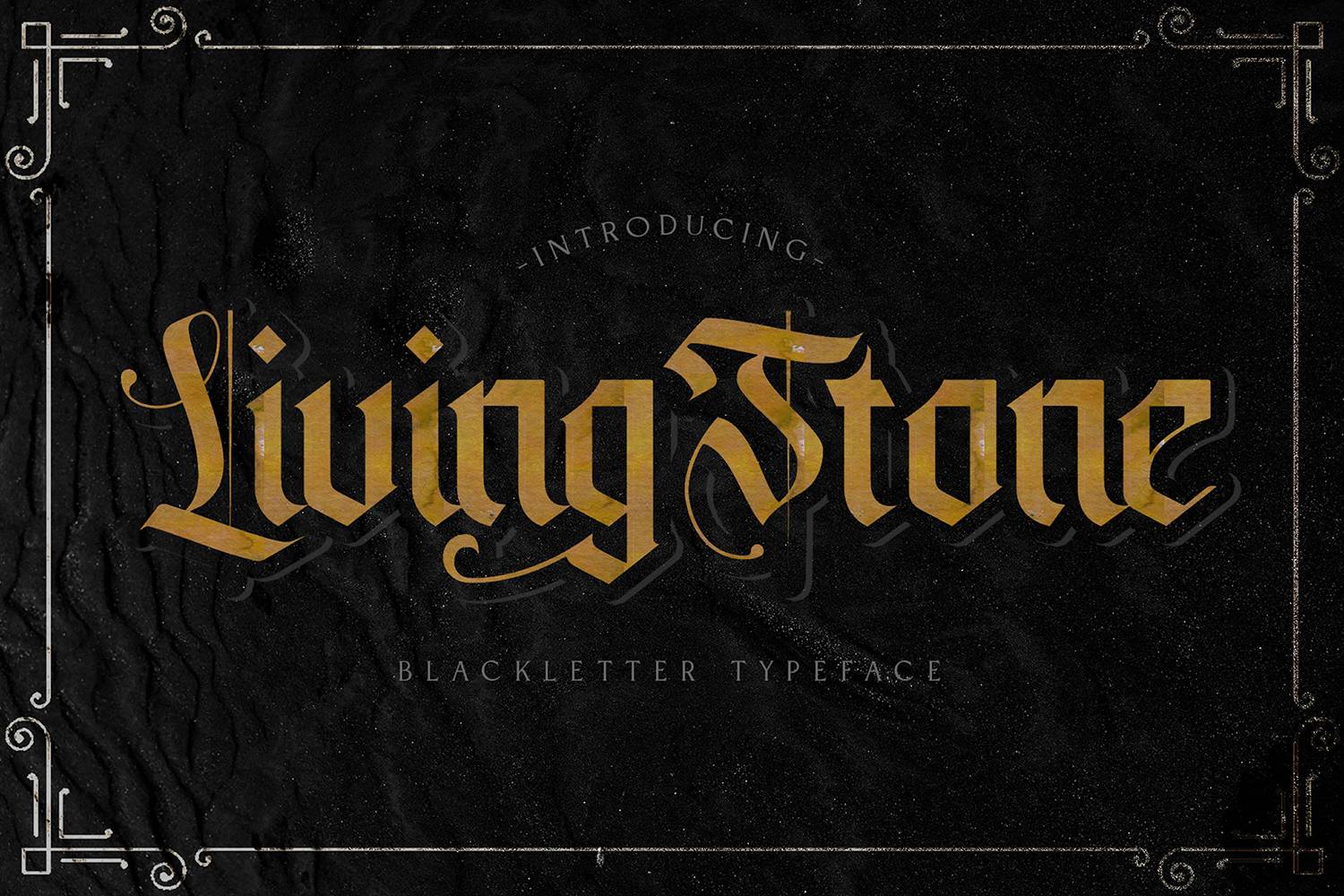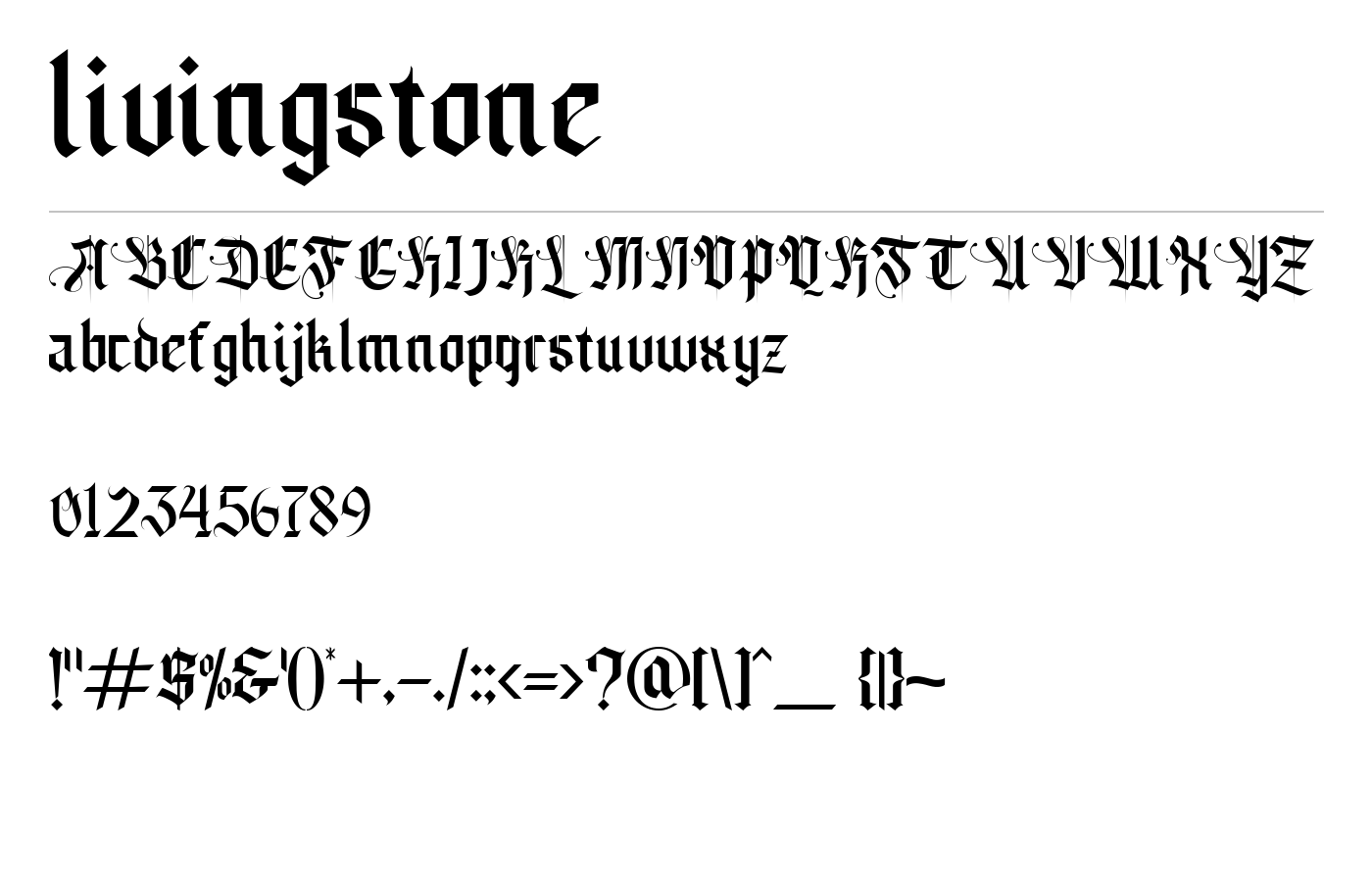
Livingstone is a bold blackletter-style font with a strong medieval character, featuring sharp, angular strokes and intricate decorative details that give it an old-world, gothic feel. Its condensed letterforms and high contrast between thick and thin lines make it ideal for impactful headlines, branding, and designs seeking a dramatic, historic, or mysterious aesthetic. This font works best in creative projects that want to evoke tradition, craftsmanship, or a sense of dark elegance.
Livingstone Font
About Livingstone Font
| Font family | Livingstone Font |
| Release date | 2007-04-25 |
| Designer | Stringlabs |